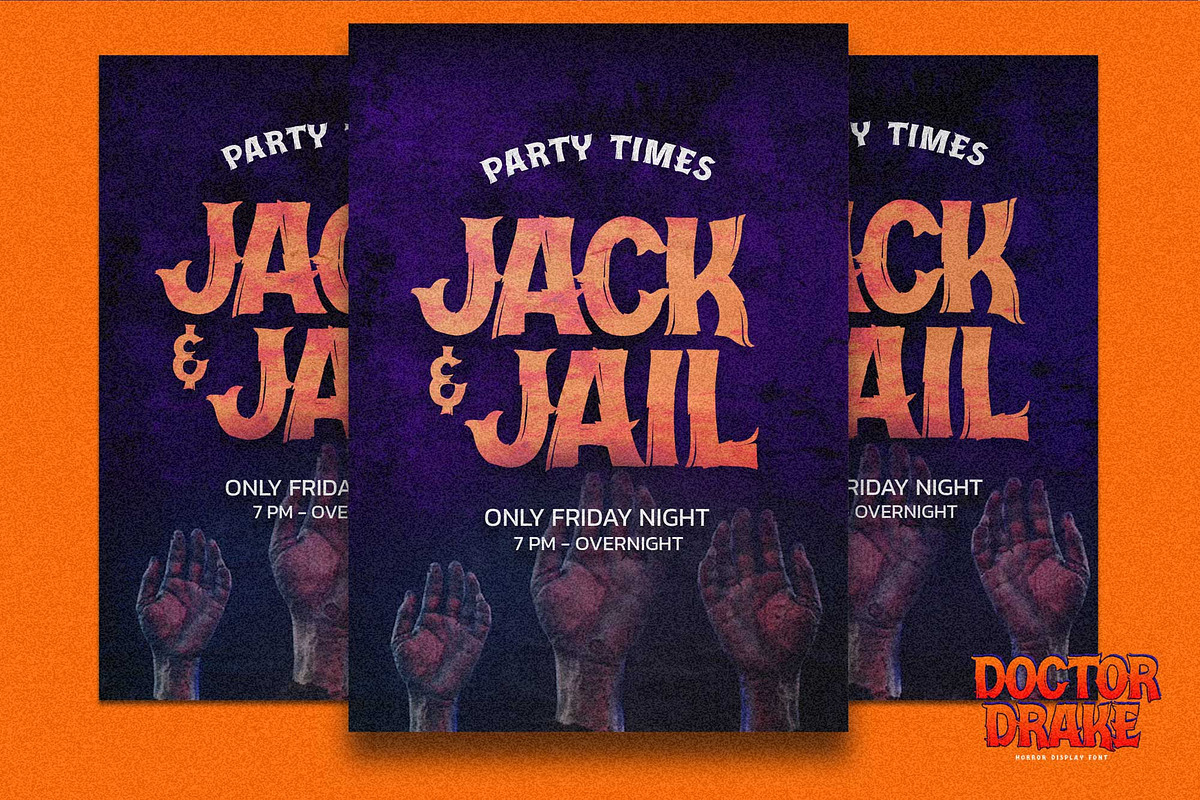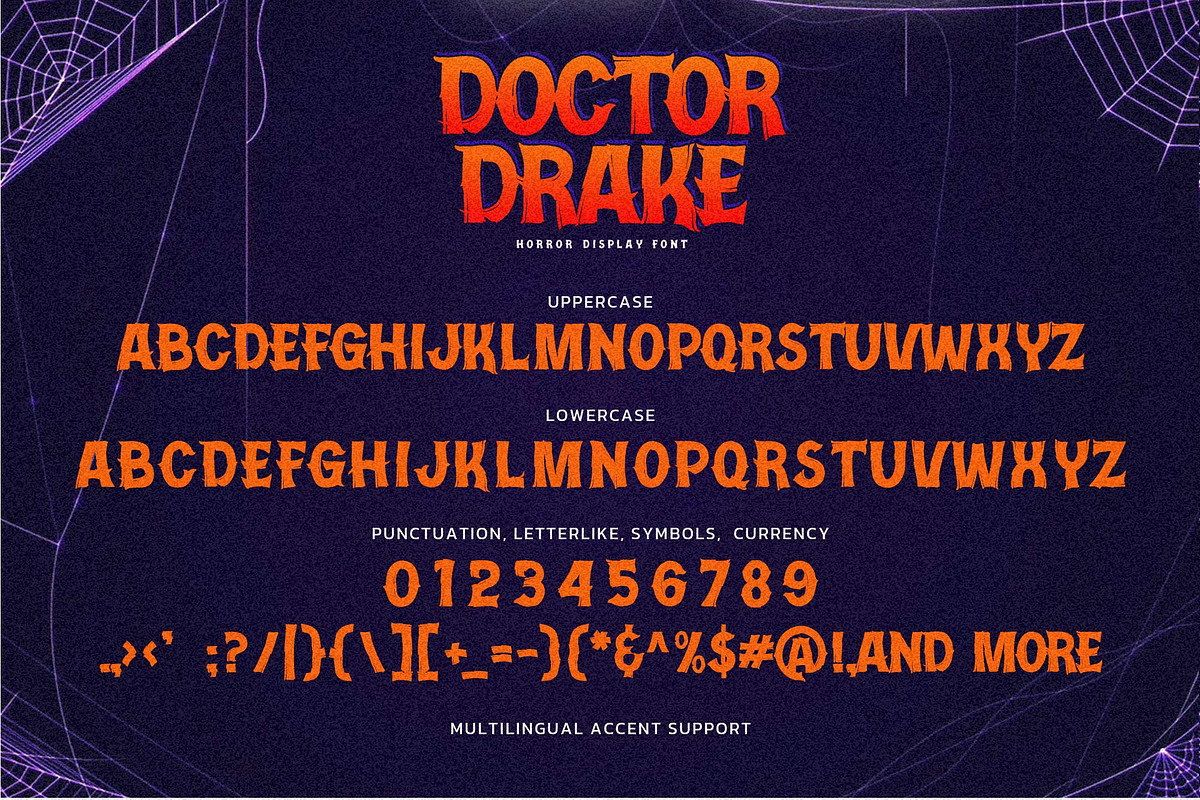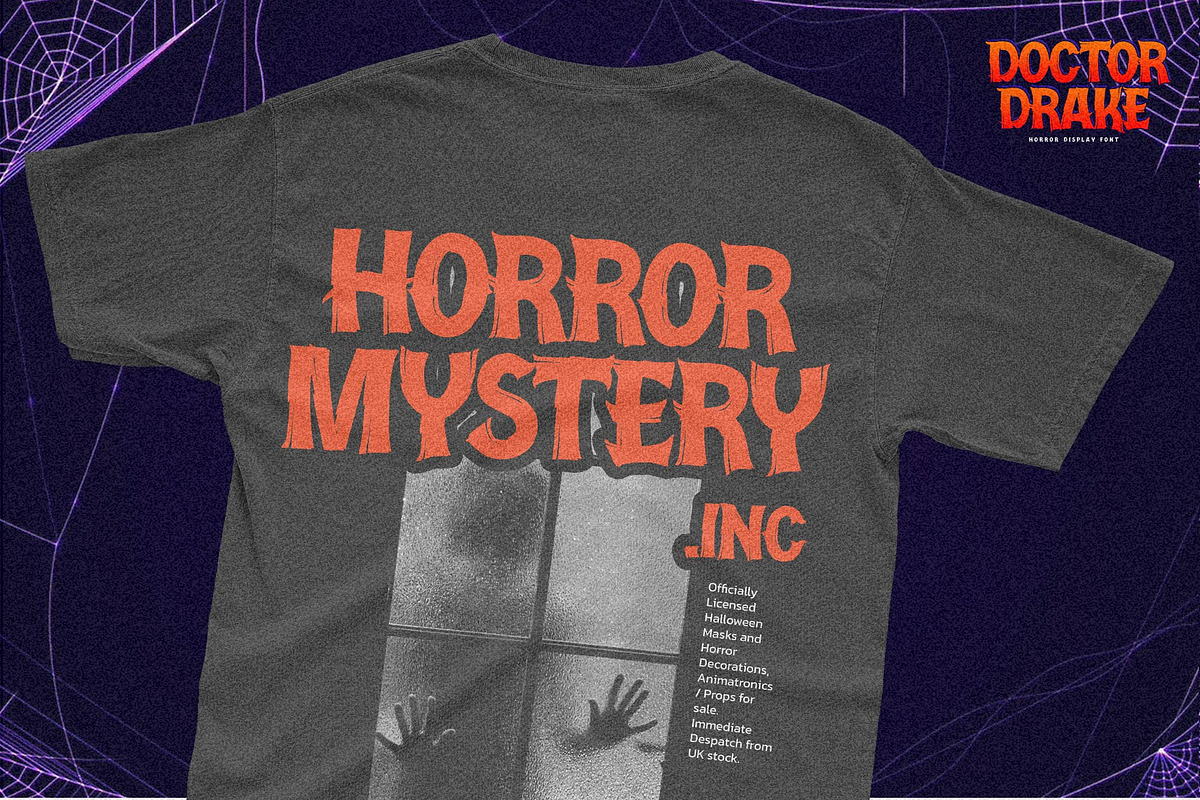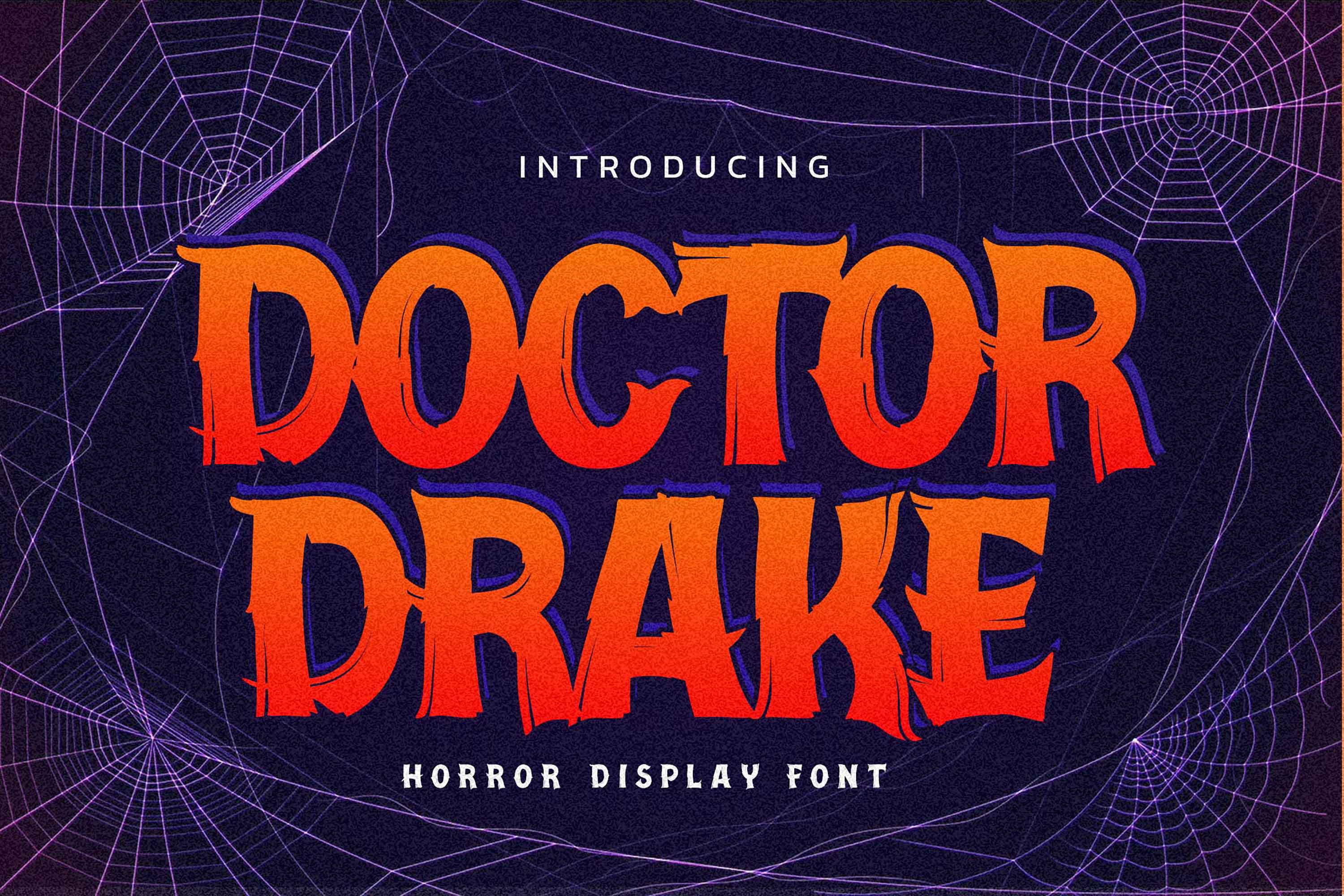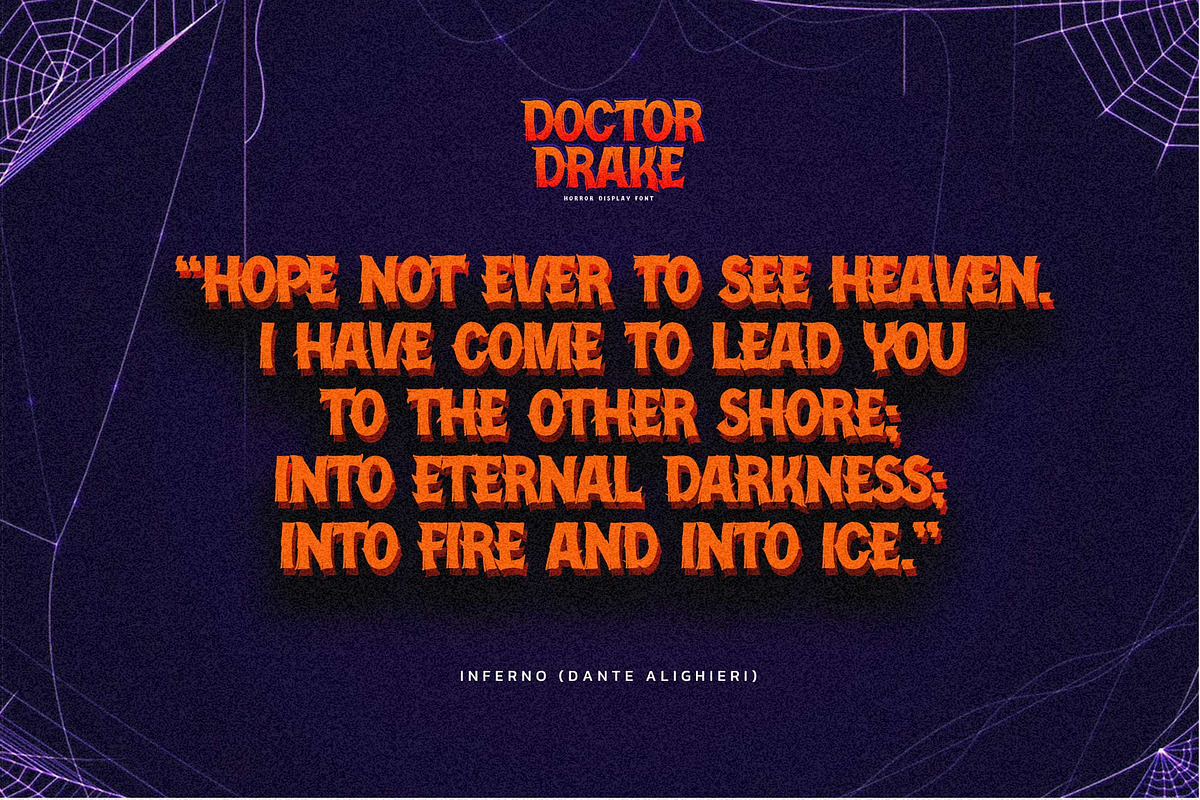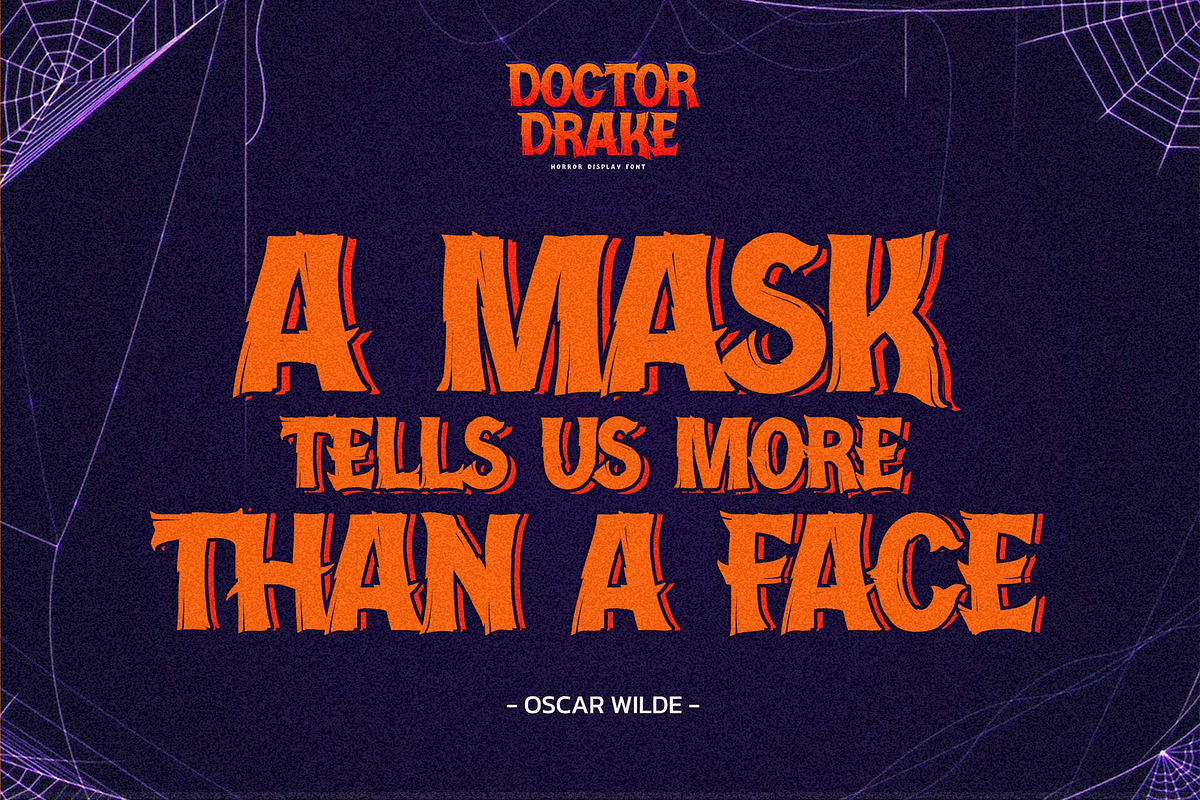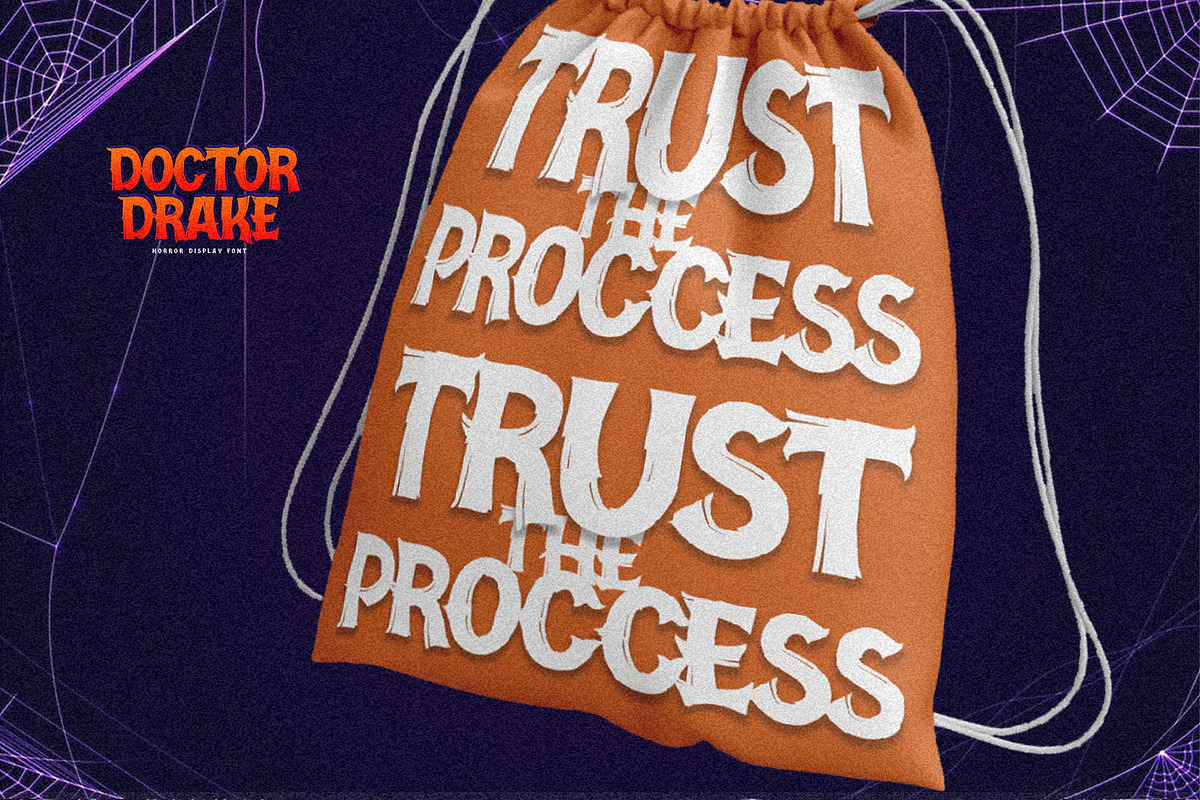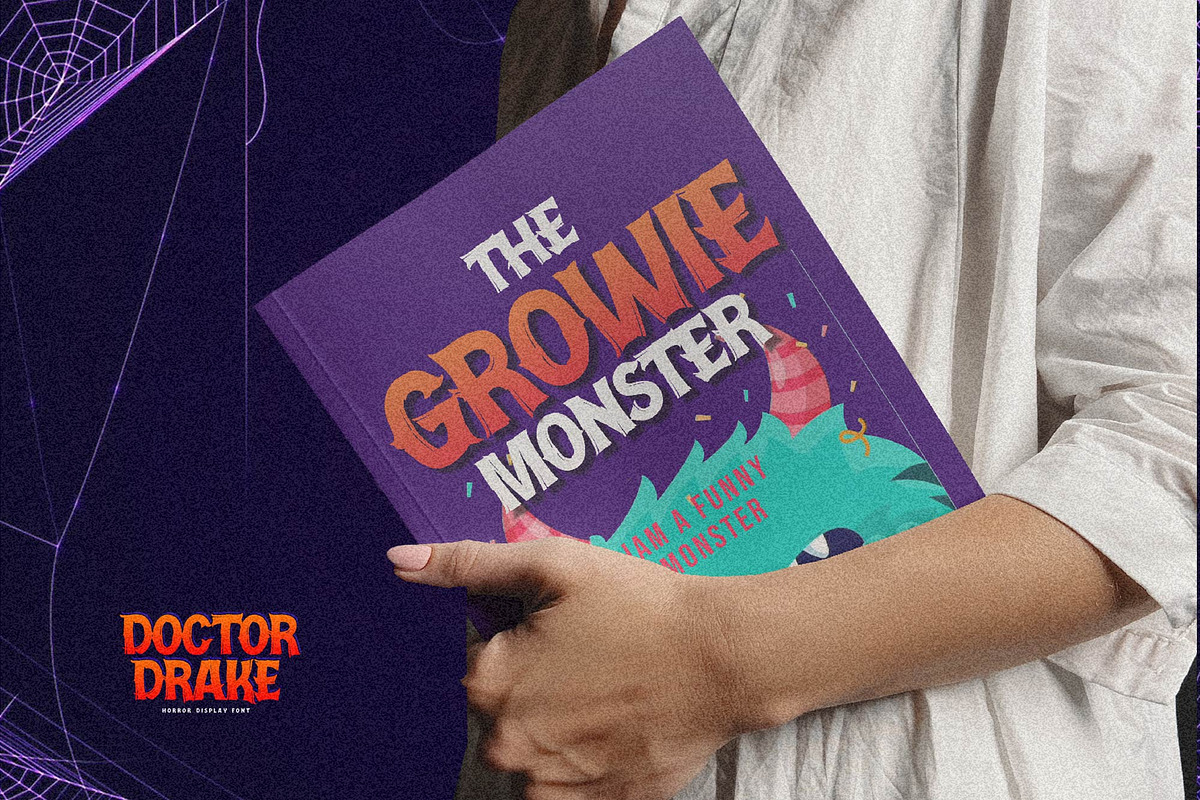
Doctor Drake - Horror Display Font
Hello Everyone, introduce our new product Font Doctor Drake it is Horror Display Font.This is a Textured Natural Style and Strong style with a Cool style and dramatic movement. This font Doctor Drake is great for your next creative project such as logos, printed quotes, invitations, cards, product packaging, headers, Logotype, Letterhead, Poster, Design this font is great for your creative projects such as watermark on photography, and perfect for logos & branding, invitation,advertisements,product designs, stationery, wedding designs,label ,product packaging, special events or anything that need handwritting taste. That is has charming, authentic and relaxed characteristic more natural look to your text.